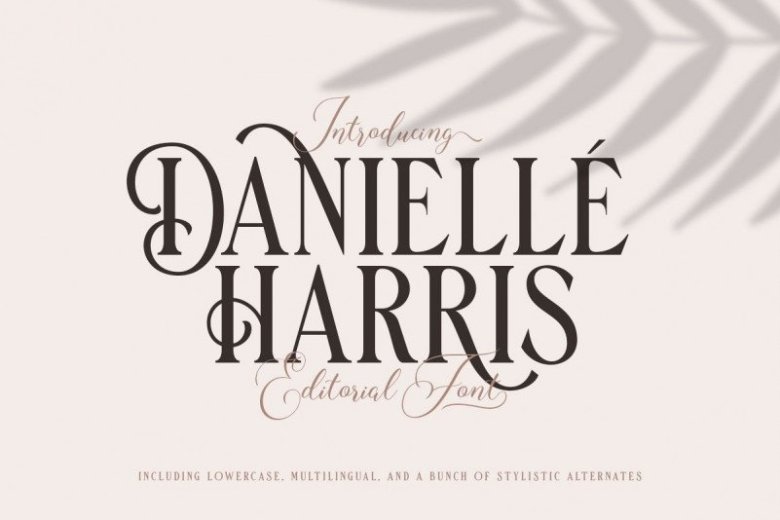
Danielle Harris Display Font
Say hello to Danielle Harris Font. This is a modern serif font that is very interesting. The shapes of the letters and perfectly balanced high-contrast makes each sign look elegant, sophisticated and eye-catching. Danielle Harris Display is a typeface with modern yet classy feel! They works perfect for you who needs a typeface for headline, logotype, apparel, invitation, branding, packaging, advertising etc. This typeface is comes in uppercase, lowercase, punctuation, symbols, numerals, stylistic set alternate, ligatures, etc also support multilingual.